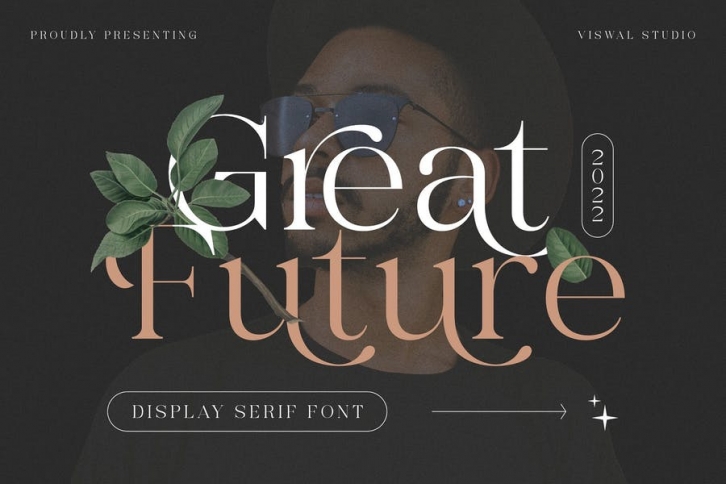
Great Future - Modern Font Download
Presenting Great Future - Modern Font is suitable for invitations, labels, logos, magazines, books, greeting / wedding cards, packaging, fashion, make up, stationery, novels, and etc. Our fonts have Uppercase & Lowercase, Numeral & Punctuation, Multilingual support and Opentype Features. For Amazing designs you can mix with other fonts as a complement.